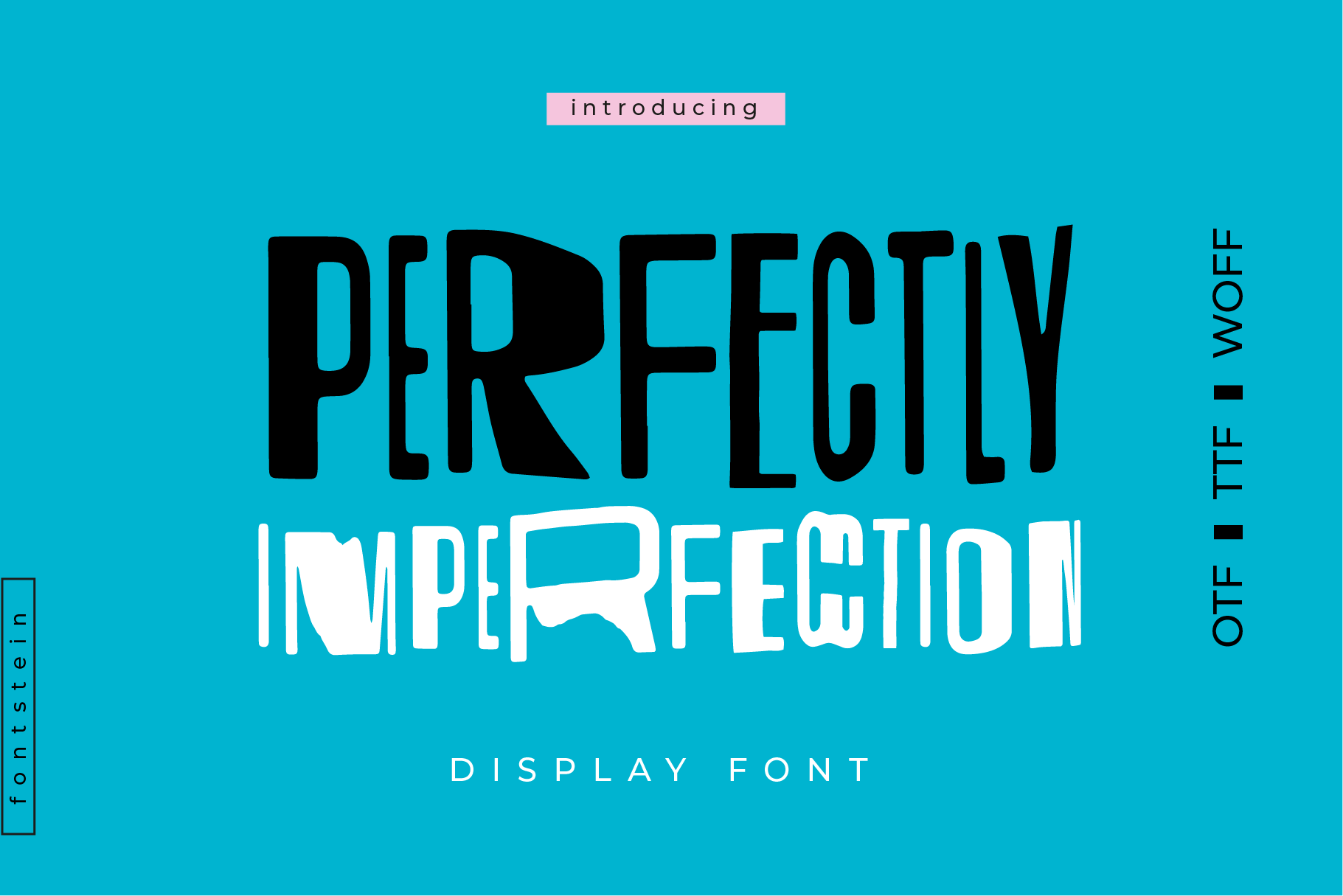
PERFECTLY IMPERFECTION is a quirky one-weight font that is inspired by printer scanning errors. It can evoke a smile and create a bold mood. The characters jump around the baseline giving it a charming but modern look and feel. The font is perfect for contemporary branding.
- One weight (Lowercase is Alternates Characters to use both cases interchangeably)
- Punctuation, Symbols & Numbers
- Lots of alternates (in addition to lowercase alternates)